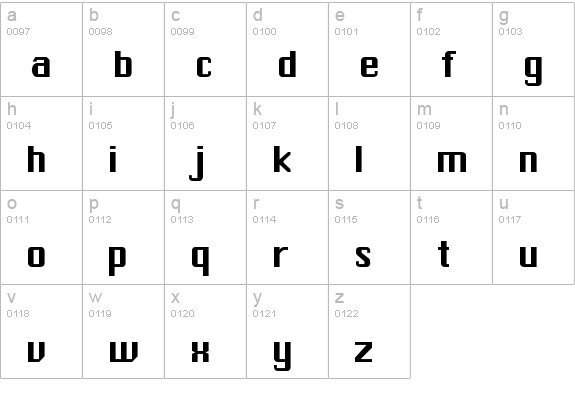
Hickton-Lgiht Font Details
Hickton-Light font is a modern and elegant typeface that exudes sophistication and class. With its sleek lines and stylish curves, this font is perfect for adding a touch of refinement to any design project. Whether you're creating a logo, website, or marketing materials, Hickton-Light font will elevate your work to the next level. The best part? Hickton-Light font is completely free to download at FontsMarket.com. You can easily access this stunning font and incorporate it into your creative projects without any cost. Don't miss out on the opportunity to enhance your designs with the timeless beauty of Hickton-Light font. Download it today and start creating stunning visuals that will impress your audience.